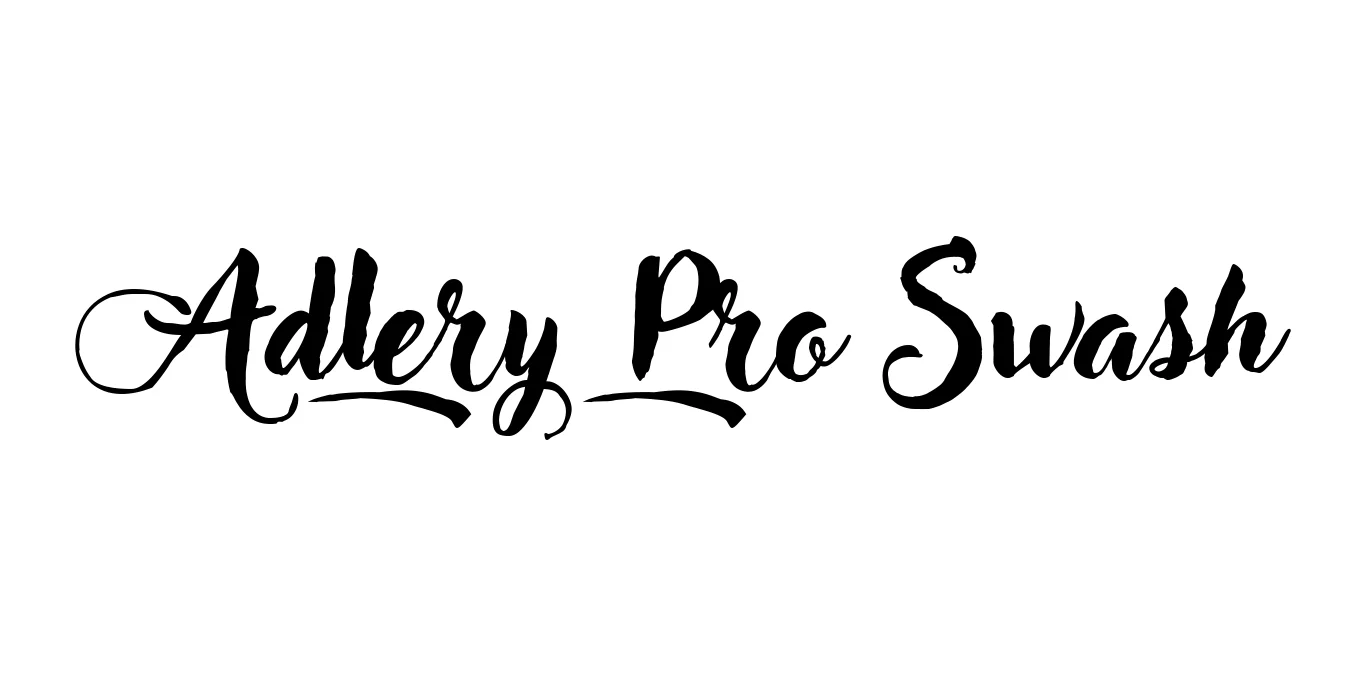
Adlery Pro Swash
Designed by Cosimo Lorenzo Pancini
Adlery Pro Swash is an elegant extension of the Adlery family, meticulously crafted by Cosimo Lorenzo Pancini for Zetafonts. This typeface captures the essence of natural, fluid handwriting with a focus on expressive, sweeping flourishes that provide a sophisticated calligraphic aesthetic. It was designed to offer a balance between casual spontaneity and formal elegance, making it a versatile tool for designers looking to inject personality into their digital compositions.
The font utilizes advanced OpenType features to ensure that the ligatures and swashes interact harmoniously, mimicking the rhythmic flow of a real fountain pen. Its organic curves and varying stroke weights make Adlery Pro Swash particularly effective for high-end branding, editorial headers, and romantic stationery. It stands out as a premier choice for projects that require a human touch without sacrificing professional clarity.
Adlery Pro Swash Best Uses
Exquisite choice for invitations, save-the-dates, and formal event place cards.
Perfect for boutique brands and artisanal products seeking a signature-style identity.
Adds a personal, handwritten flair to inspirational quotes and lifestyle posts.
Ideal for luxury goods, cosmetics, and organic food labels that need a craft aesthetic.